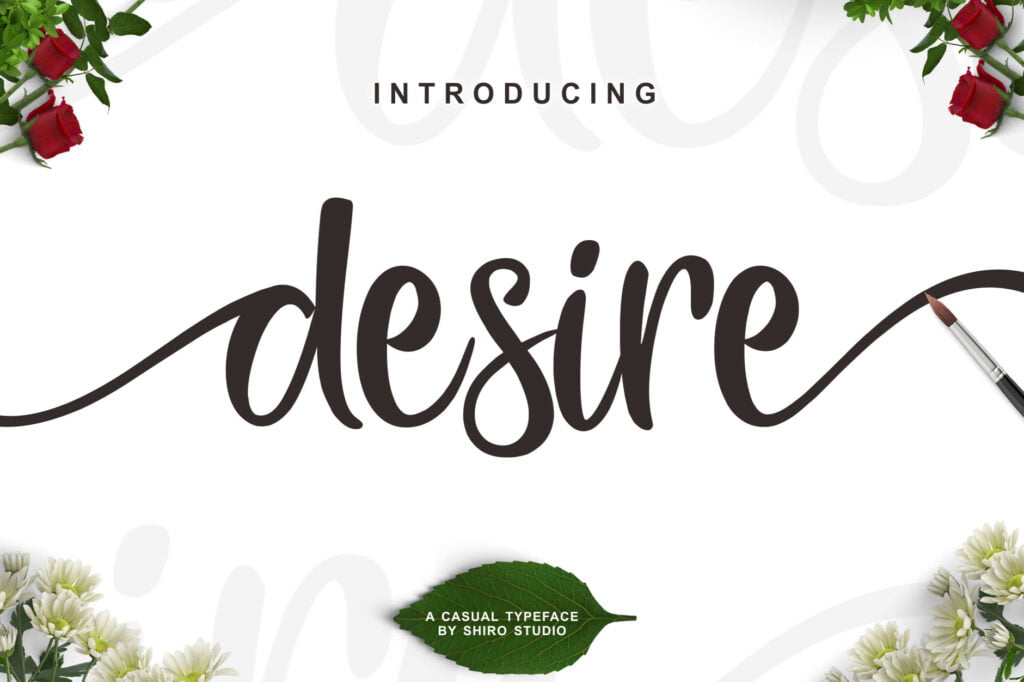
Desire Script Font
Desire script is casual script that has modern touch. Suitable for logo’s, branding, website, invitation, business card, and for any merchandise. The Desire script regular glyphs, stylistic alternate, ligatures, and stylistic set , just play these opentype features to get your best feel for your design. This also comes with 26 extras to make designing easy and fun.